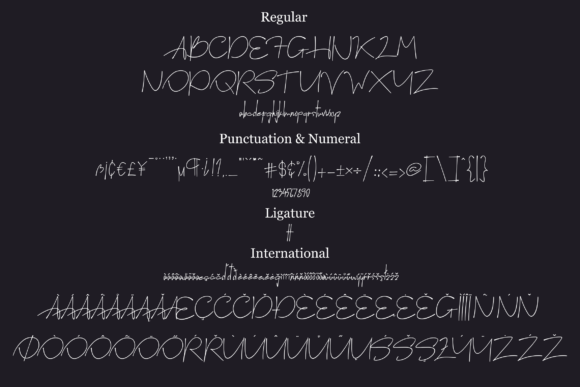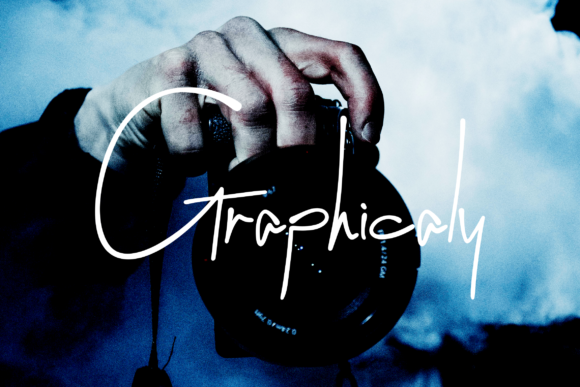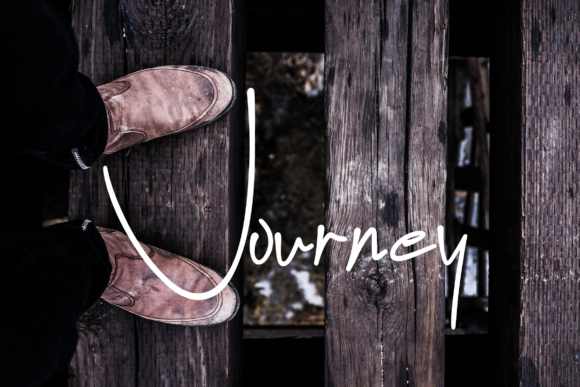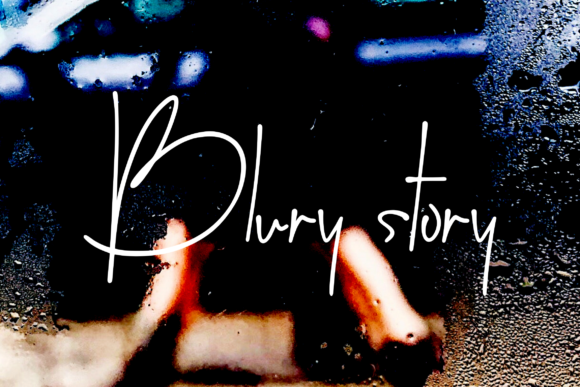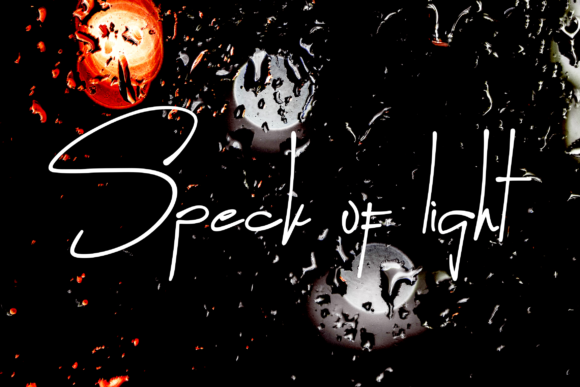
The D’dyvo Font: A Bold and Charming Script for Creative Projects
I’ll never forget the time I was working on a branding project for a trendy boutique, and I just couldn’t find the perfect font to capture their playful yet sophisticated vibe. That’s when I stumbled upon the D’dyvo font, and it instantly became my go-to choice. In this article, I’ll share my love for this bold and charming script, its features, and how to make the most of it in your creative projects.
An Honest Review of D’dyvo Font
What I Love About D’dyvo Font
- ✨ Unique and eye-catching design: D’dyvo font stands out from the crowd with its distinctive, hand-drawn feel that’s perfect for titles, brands, banners, or flyers.
- ✅ Highly versatile: This font can be used for a wide range of creative projects, from logos and branding to social media graphics and marketing materials.
- 💫 Elegant and sophisticated: Despite its bold nature, D’dyvo font exudes a sense of elegance and refinement, making it suitable for high-end brands and luxury projects.
While D’dyvo font is an excellent choice for many projects, there are a few things to keep in mind:
- ⚠️ Limited use in body text: Due to its bold and decorative nature, D’dyvo font might not be the best choice for lengthy body text. It’s better suited for headings and titles.
- 🤔 Some characters may require manual adjustment: As with any font, you might need to adjust the spacing or kerning of certain characters to achieve the desired look.
- Experiment with OpenType features, such as ligatures and stylistic alternates, to add visual interest.
The Backstory of D’dyvo Font
While the origins of D’dyvo font are shrouded in mystery, it’s clear that its designer was inspired by the world of hand-drawn typography and elegant scripts. The result is a font that’s both bold and charming, perfect for creative projects that demand attention.
| Font Name | D’dyvo Font |
| Author | yoi0310 |
| What type of projects is D’dyvo font best suited for? | D’dyvo font is ideal for titles, brands, banners, flyers, logos, and other creative projects that require a bold and charming script. |
| Can I use D’dyvo font for body text? | While possible, D’dyvo font is better suited for headings and titles due to its bold nature. For lengthy body text, consider a more traditional font. |
| Does D’dyvo font support OpenType features? | Yes, D’dyvo font supports various OpenType features, including ligatures, stylistic alternates, and glyphs. Experiment with these features to add visual interest to your project. |